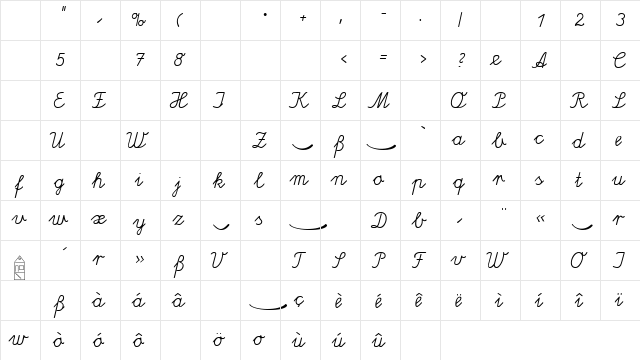
Lateinaus Regular
Design Context for Lateinaus Typeface
Lateinaus takes a measured approach to typography — its balanced proportions and neutral character make it a reliable workhorse for both digital and print work.